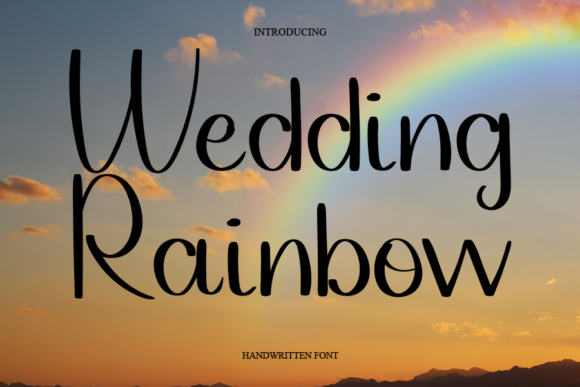
**Embrace the Magic of Wedding Rainbow: A Font that Captivates with Every Stroke**
Indulge in the whimsical world of Wedding Rainbow, a captivating script font that dances across screens like a graceful ballet. Its round letters, reminiscent of a child's playful scribbles, intertwine with an air of effortless elegance.
Whether you're an aspiring designer seeking to infuse your creations with a touch of magic or simply a lover of beautiful typography, Wedding Rainbow is a font that will ignite your imagination and elevate your designs to new heights.
**A Font Crafted for the Digital Age**
In an era where digital screens reign supreme, Wedding Rainbow emerges as a true masterpiece, optimized for retina displays. Its delicate curves and refined strokes translate seamlessly onto any device, ensuring that your creations captivate your audience with pristine clarity.
**Beyond Instagram: A Font for Endless Creativity**
While Wedding Rainbow shines as the perfect complement to your Instagram posts, its versatility extends far beyond social media. Its whimsical nature lends itself to an array of creative endeavors, from heartfelt calligraphy scripts to eye-catching DIY projects.
With Wedding Rainbow, you hold the key to transforming your every creative vision into a stunning work of art. Let its enchanting strokes inspire you to create designs that resonate with your audience and leave an enduring impression.
**Why Wedding Rainbow? Because Every Detail Matters**
* **Round Lettered Charm:** Its playful, rounded letters exude a sense of whimsy and innocence, adding a touch of magic to your designs.
* **Handwritten Elegance:** Each stroke of Wedding Rainbow is imbued with the artistry of a skilled calligrapher, bringing a touch of sophistication to your creations.
* **Retina Display Optimized:** Experience the beauty of Wedding Rainbow in its full glory on high-resolution screens, where every detail is crisp and vibrant.
* **Endless Versatility:** From Instagram captions to heartfelt letters, unleash your creativity with a font that effortlessly adapts to any project.
Immerse yourself in the world of Wedding Rainbow and discover a font that not only enhances your designs but also captivates the hearts of your audience. Let its enchanting strokes guide you towards creating unforgettable experiences that resonate with beauty and grace.